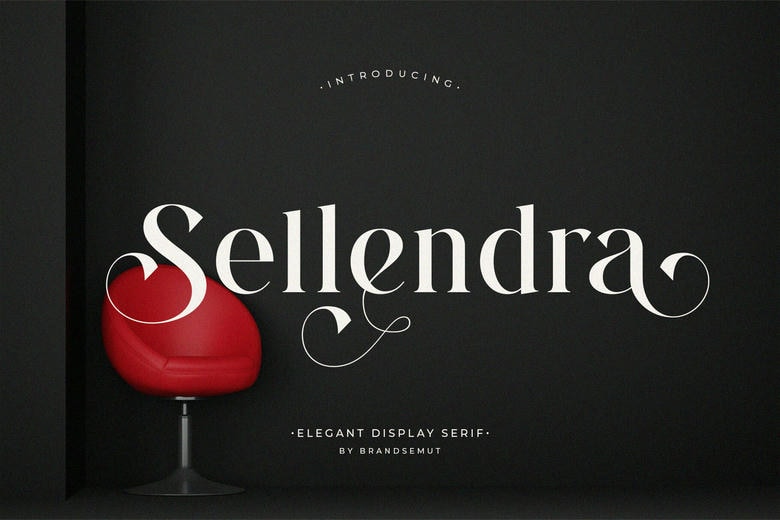
Sellendra Font
Sellendra is a beautiful classic style serif font that can be used on glamorous, innovative, and classic works. With her well-designed uppercase and lowercase and some charming swashes and ligatures, Sellendra is ideal for branding, editorial design, wedding invitation design, labeling products, and artistic logos that need to be attention-seeking and speaker-level.
Sellendra Elegant Display Serif Font